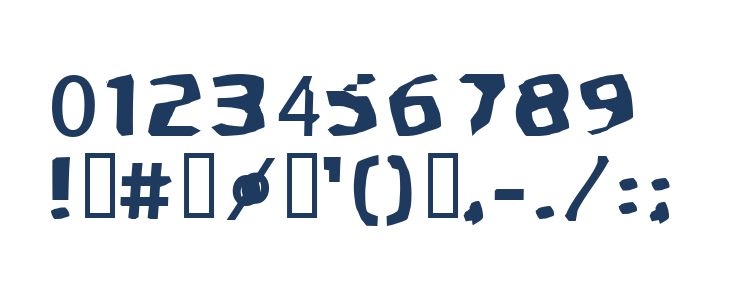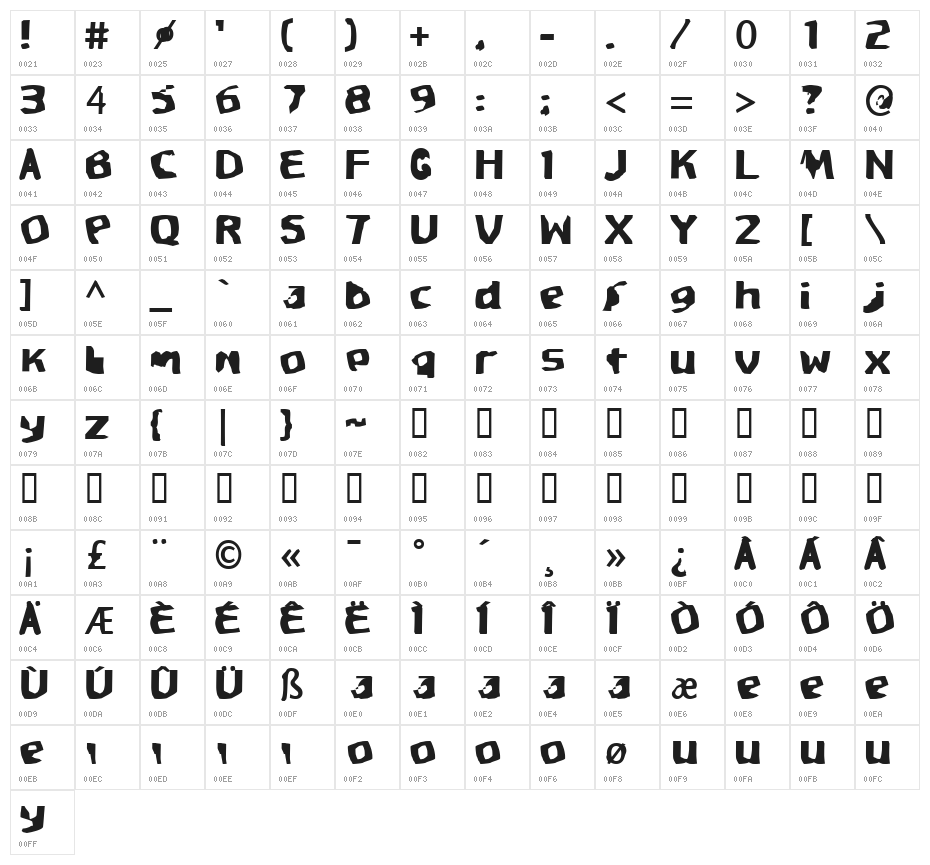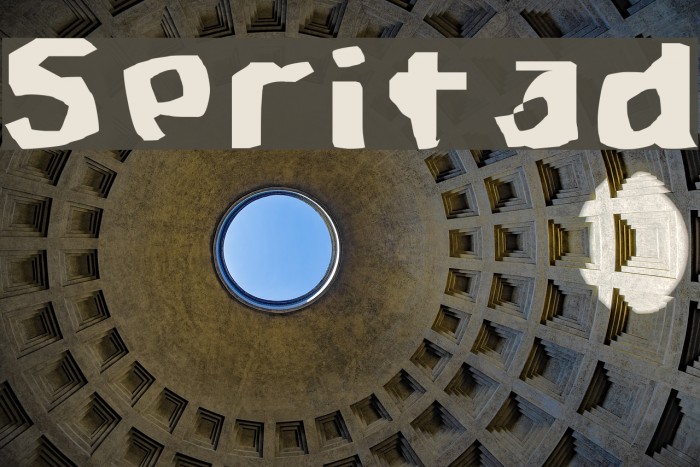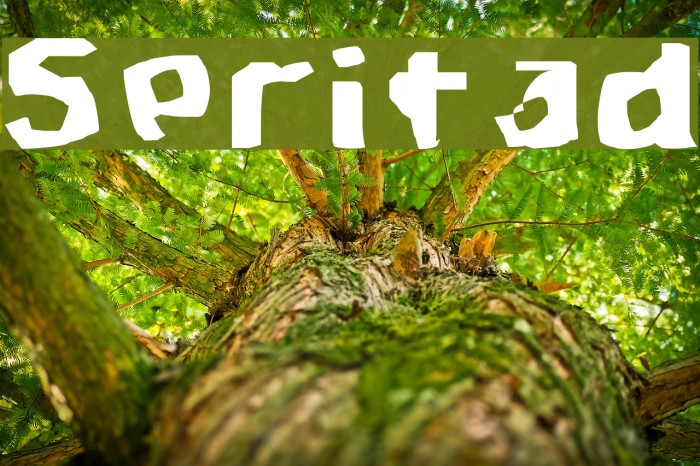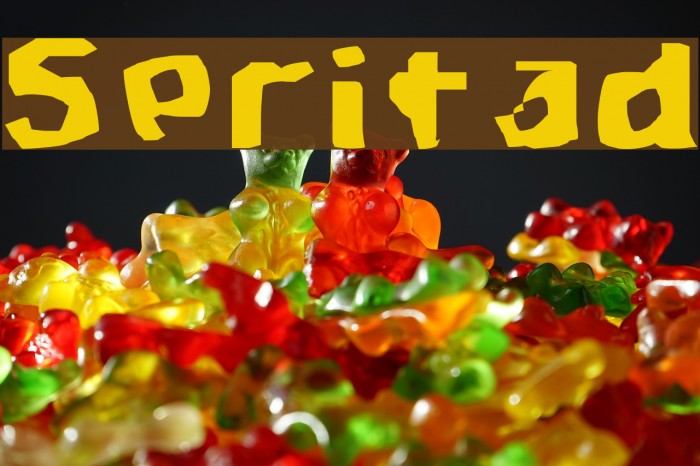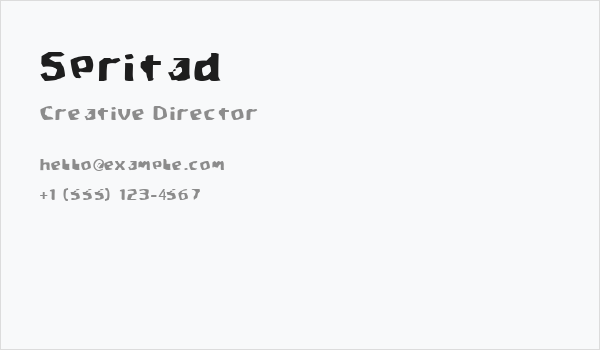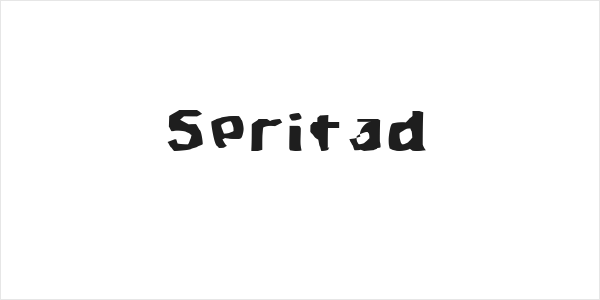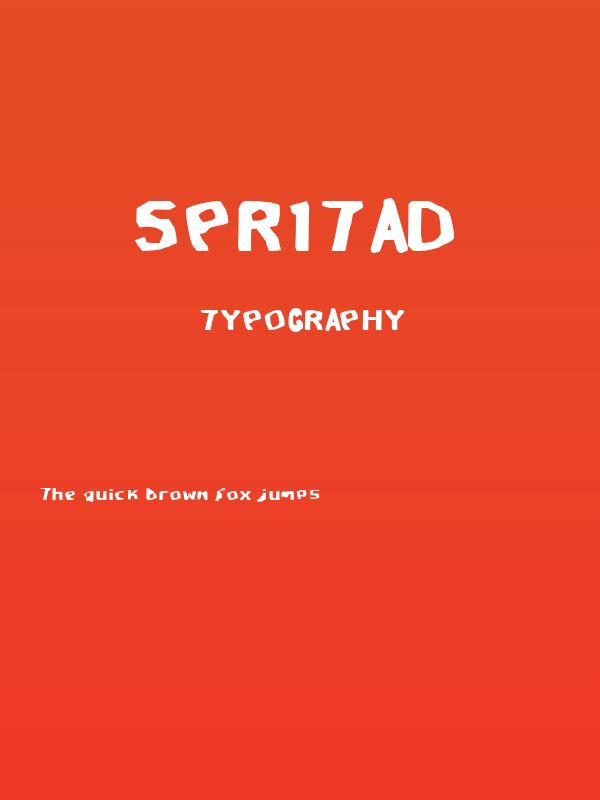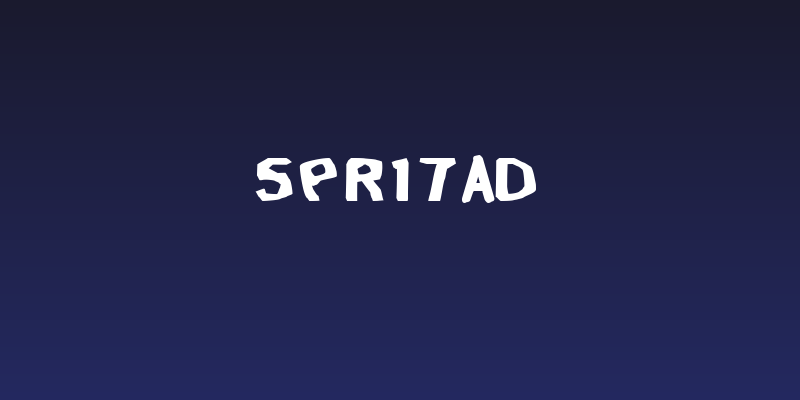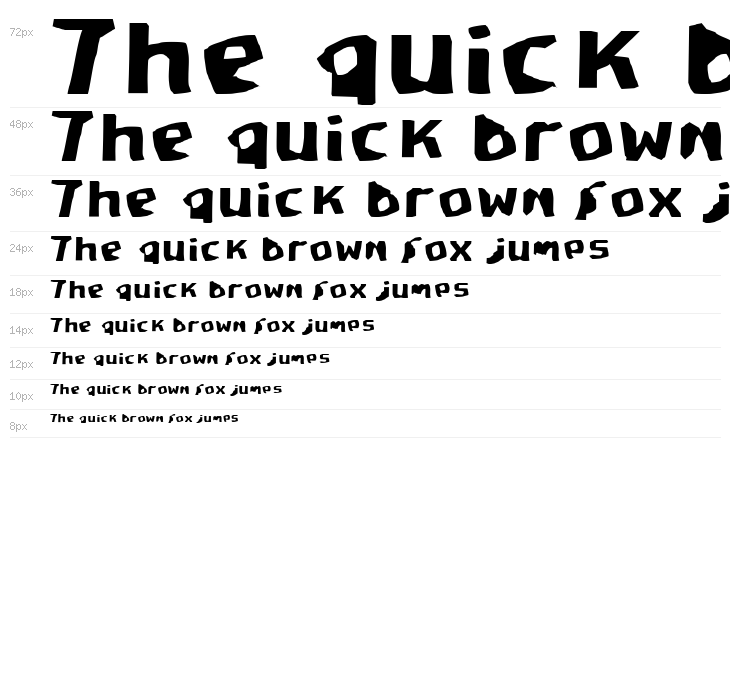
Spritad Font
This font features a bold and rugged design with irregular, jagged edges that give it a hand-cut, organic appearance. The uppercase and lowercase letters maintain a consistent height, creating a cohesive look despite the rough texture. Numbers and special characters follow the same stylistic approach, ensuring uniformity across all glyphs. The font's unique style makes it stand out, offering a dynamic and energetic feel that is both modern and slightly rebellious. Its distinct character shapes and bold presence make it suitable for attention-grabbing designs.
| Proposed Projects | Ideal for posters, album covers, branding for edgy products, and any design needing a bold, standout typeface. |